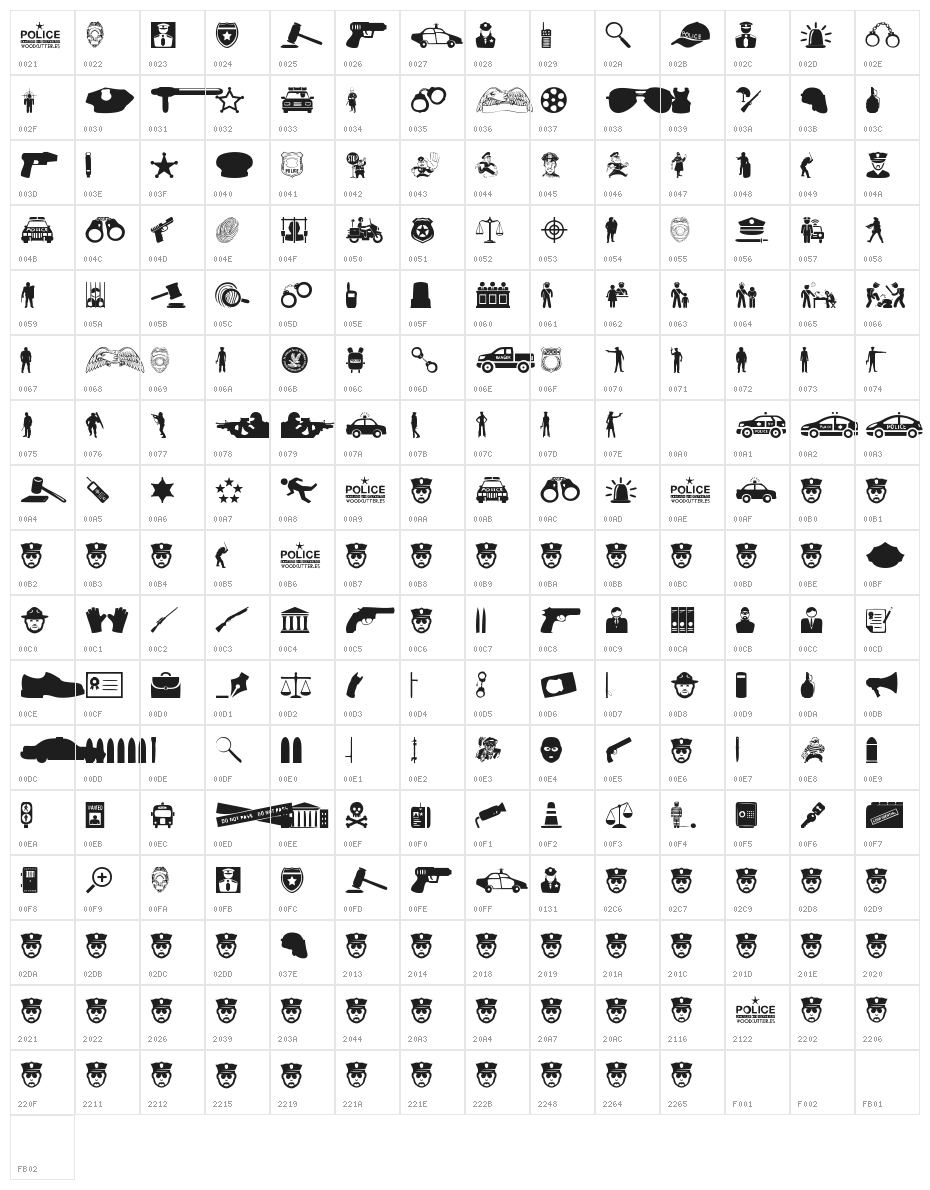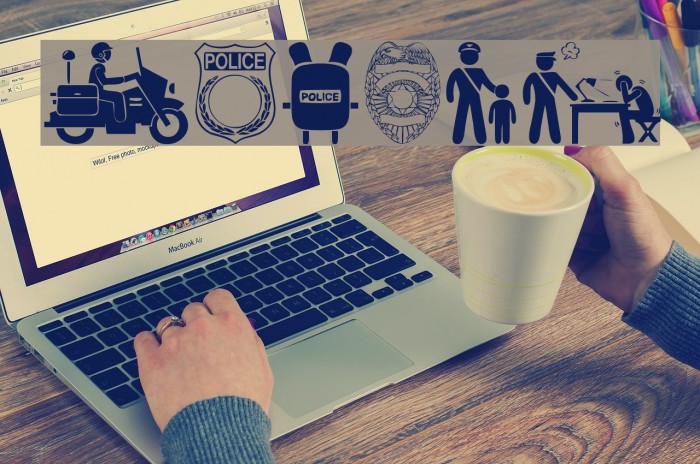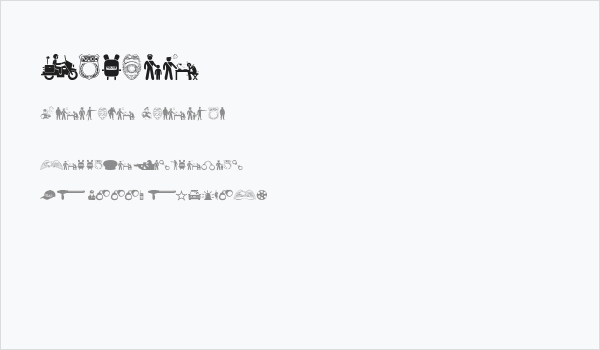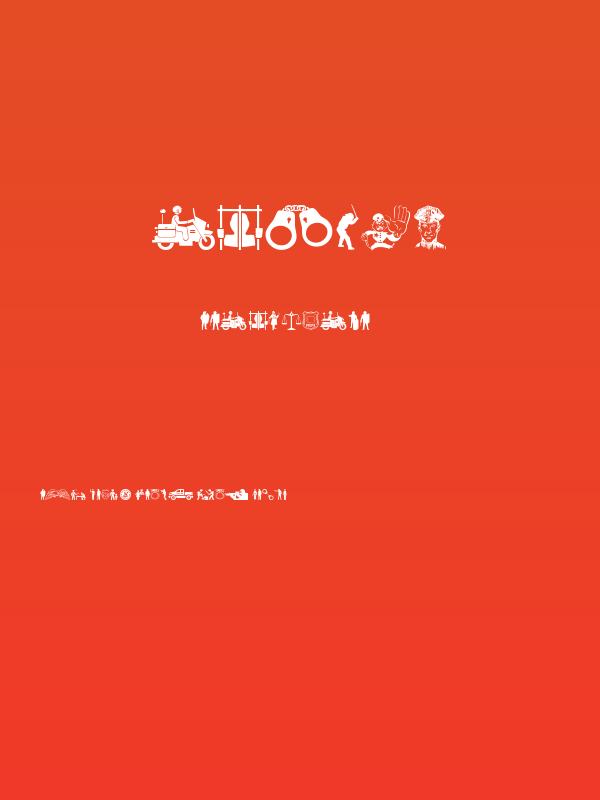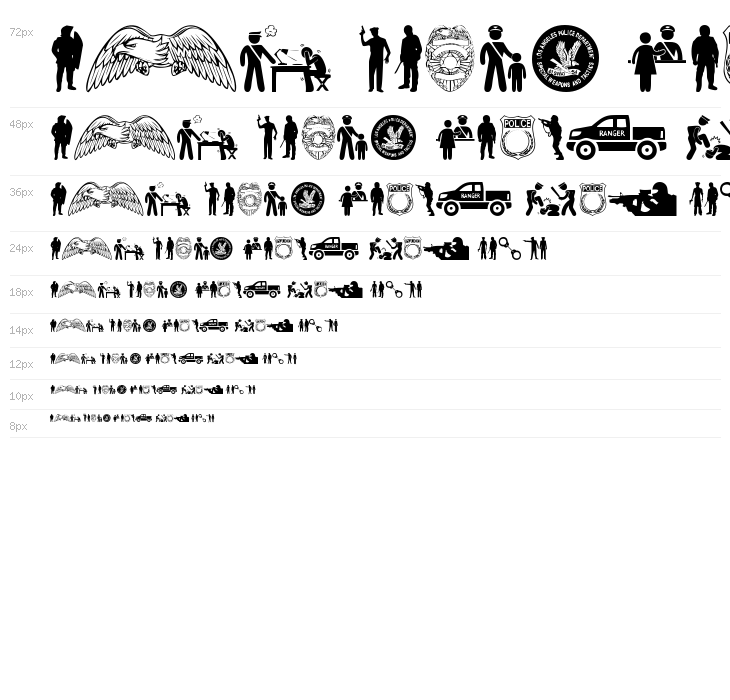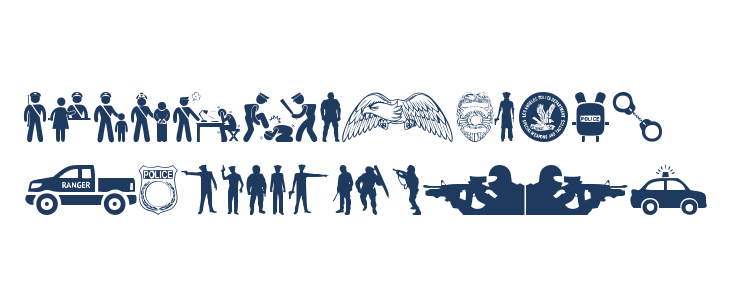
Police Font
Police Description
A collection of police-themed pictograms and icons, including badges, officers, vehicles, handcuffs, weapons, and law enforcement symbols, all in a bold, high-contrast, monochrome style.
| Overall Style | Decorative, Modern, Pictographic |
| Use Case | Icons, Signage, Infographics, Educational materials |
| Proposed Projects | Infographics, educational posters, emergency signage, app icons, presentations, law enforcement materials. |